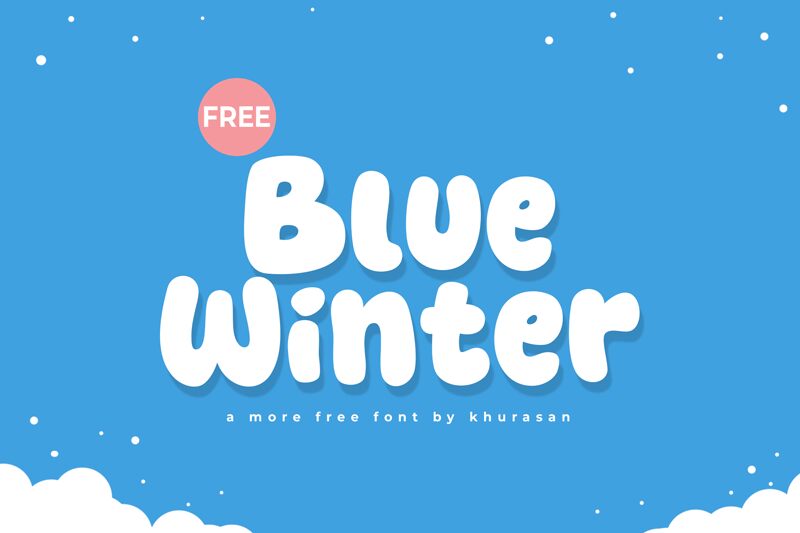
Blue Winter font family by Khurasan consists of 2 whimsical cartoon fonts full of charm and cheerfulness. Its smooth and approachable appearance will make your readers feel welcomed as they perceive the cheery spirit of your letters. Most importantly, the font generates an immediate sense of youthful joy.
The contemporary quirky feel is suitable for any project targeting a young audience. This can include fonts for games, children’s magazine headlines, comic strips, captions for animation production, and much more. Its smooth characters make it perfect for cartoons and websites that are supposed to appear informal.